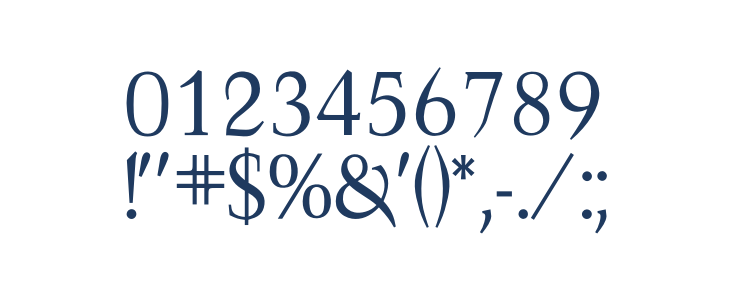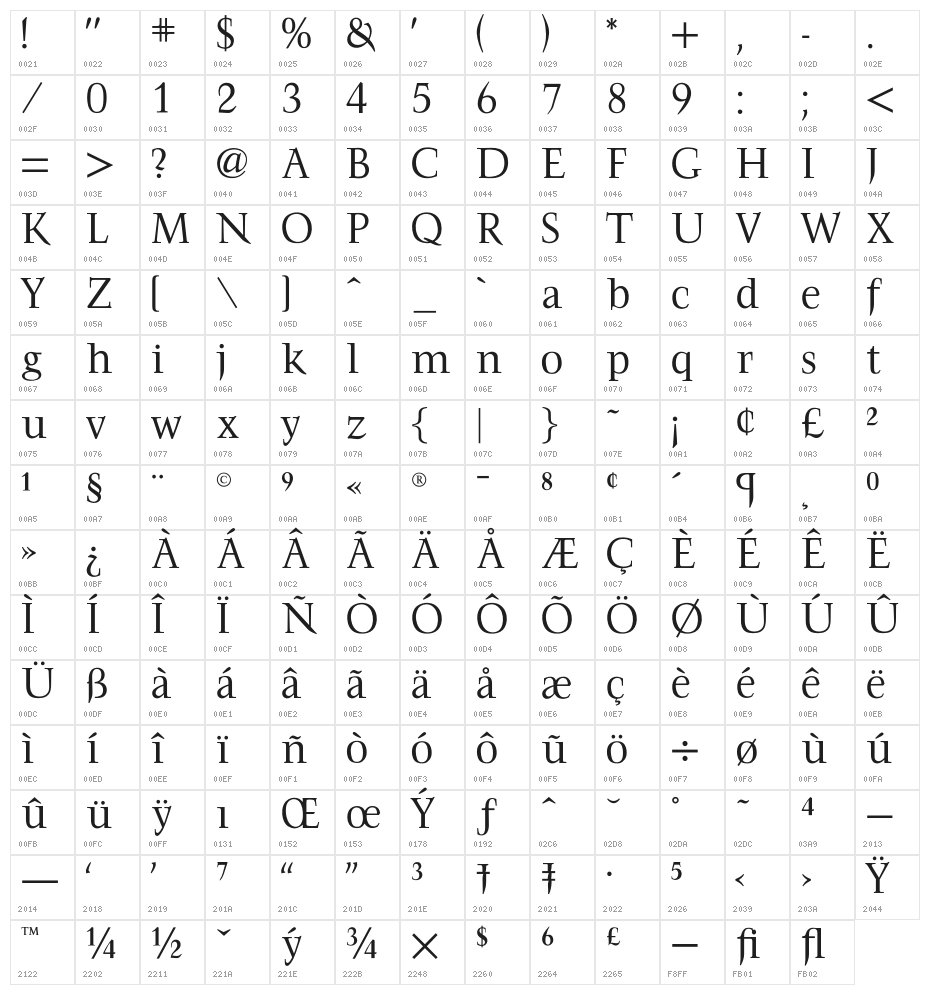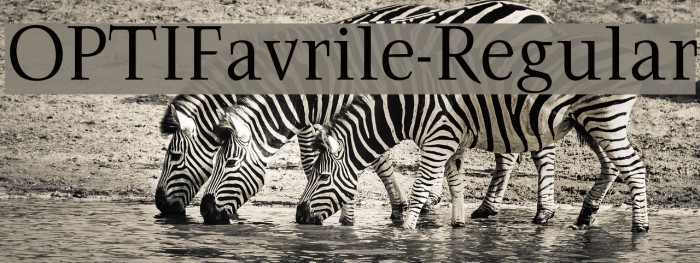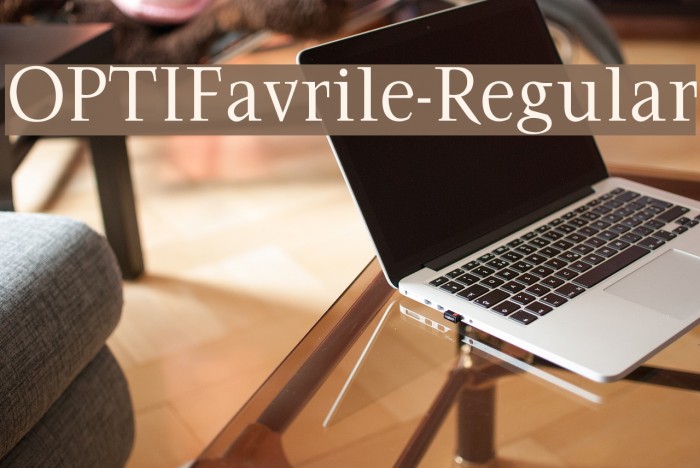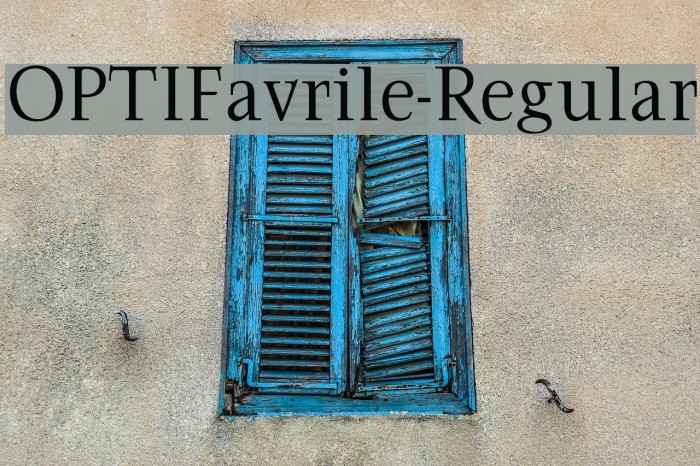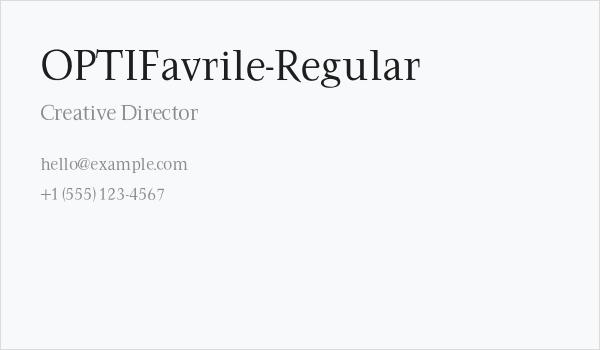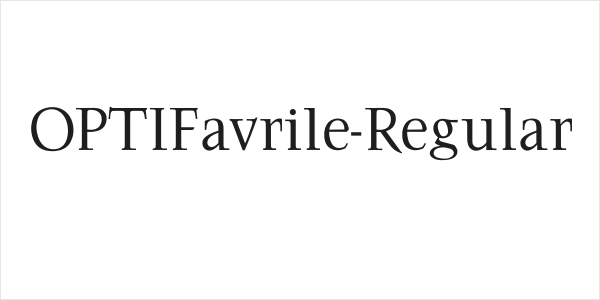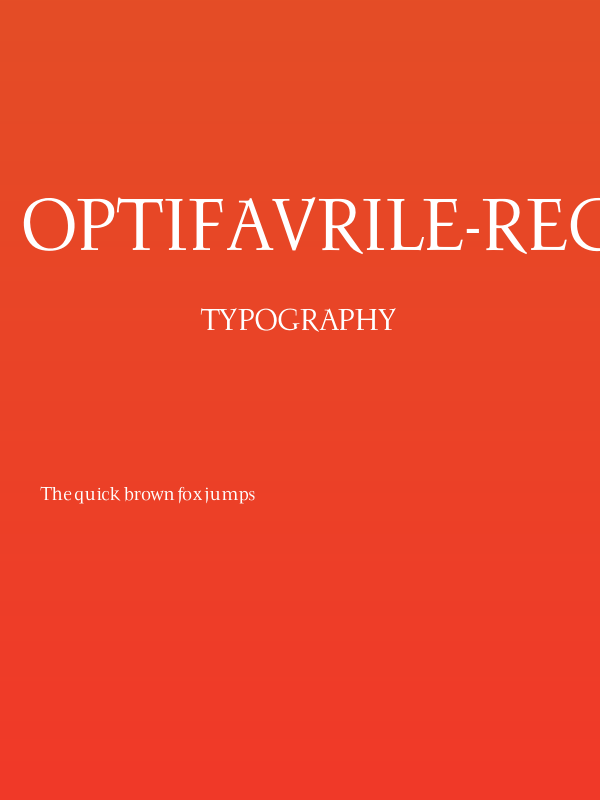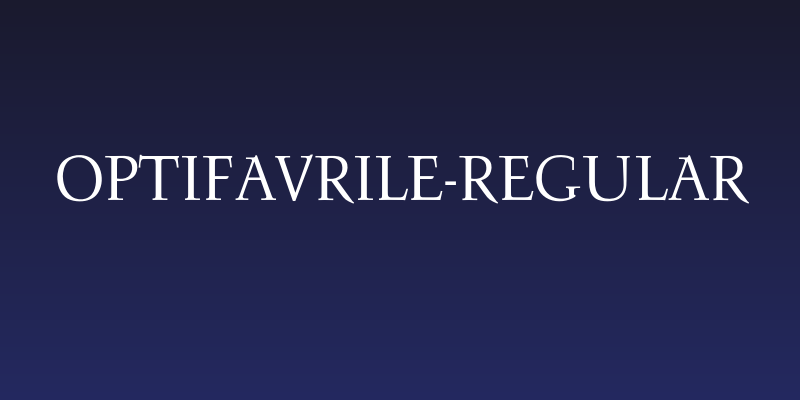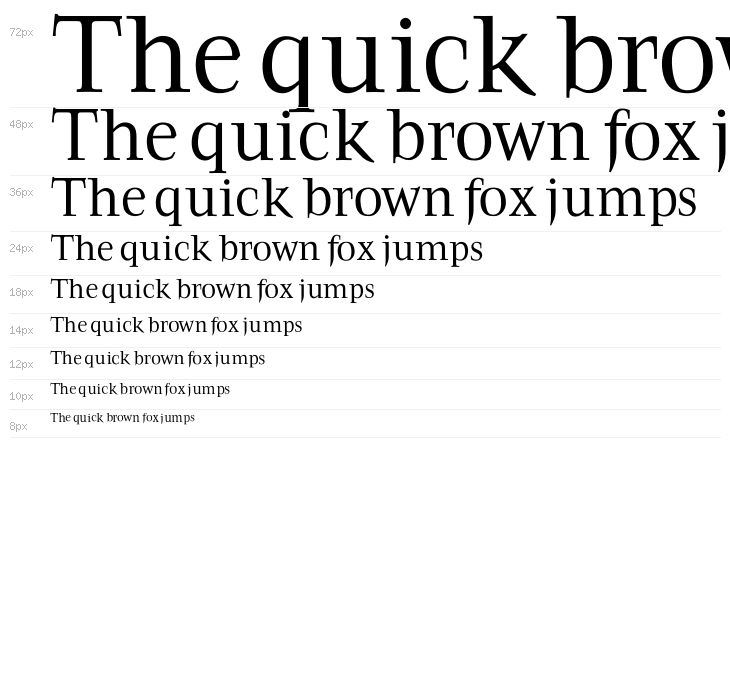
OPTIFavrile-Regular Font
OPTIFavrile-Regular Description
This typeface features a classic serif design with elegant, flowing lines and a refined appearance. The uppercase letters are tall and stately, with a slight curvature that adds a touch of sophistication. The lowercase letters maintain a consistent style, with smooth transitions and balanced proportions. The numerals are clear and legible, making them suitable for both formal and casual settings. Special characters are well-integrated, maintaining the font's overall aesthetic. The design is versatile, suitable for a range of applications from editorial to branding.
| Proposed Projects | Ideal for editorial design, book covers, branding, and formal invitations. |